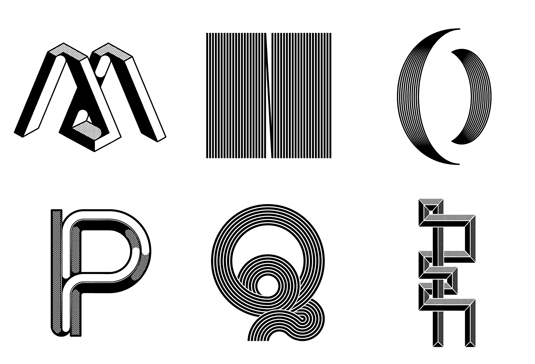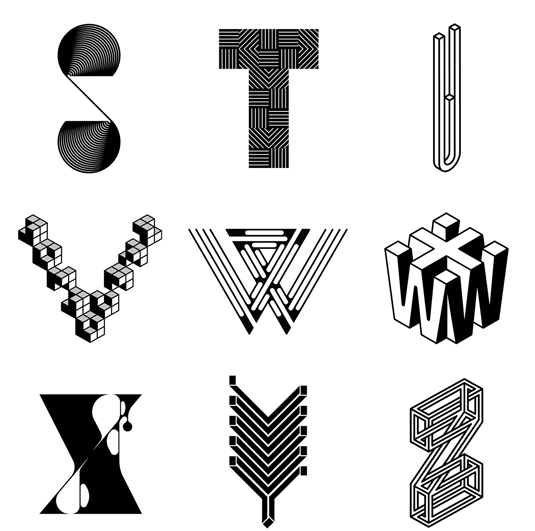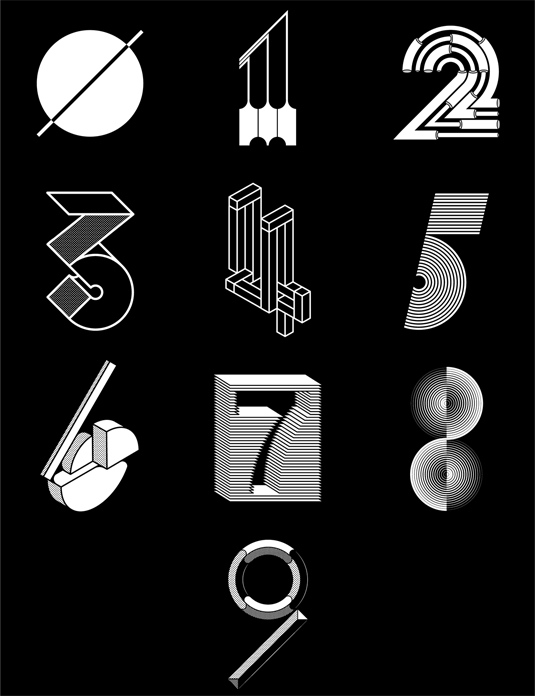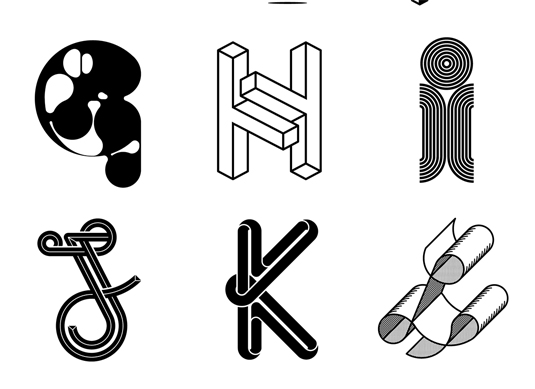
Fun font project sees new typeface created every day
Alexander Wright created a new typeface every day for 36 days and the results are beautiful.
Creating new typefaces can be a daunting task, however, it can also be one of the most rewarding design disciplines. Typographer Alexander Wright recently put his skills to the test by participating in the 36 days of type project, which saw him create a new typeface every day for 36 days.
"I wanted to create a system where each letter could show it's own personality and characteristics, yet somehow, very loosely, still maintain a sense of familiarity with the other designs of the group," explains Wright. "I went with a strict black and white palette: black on white background for the letters and viceversa for the numbers. The whole group was developed using basic geometric forms."
"While developing the W, I came up with the dual letter (W/X), which I also decided to include in the group, although strictly speaking may conceptually separate itself a little bit from the others." Take a look at the collection below and let us know which of the creations is your favourite.